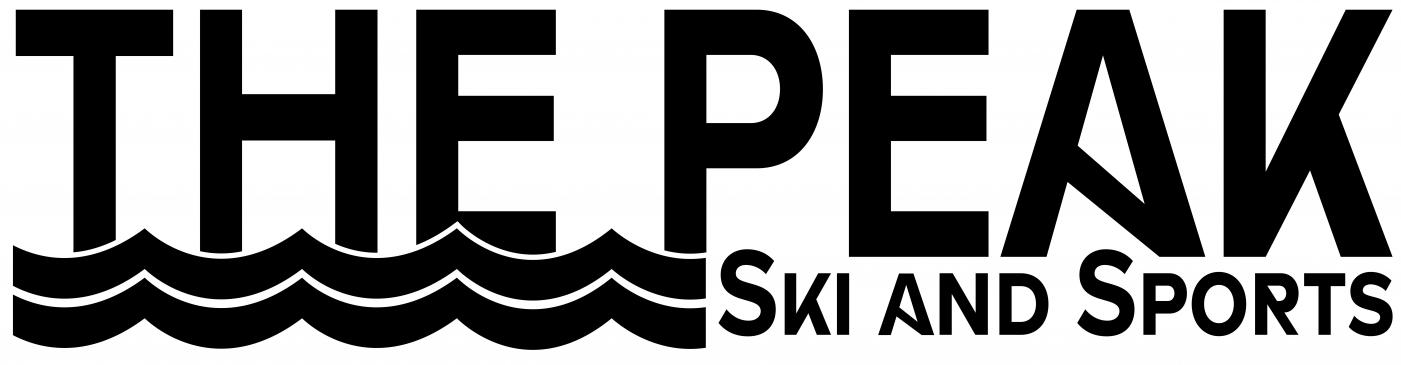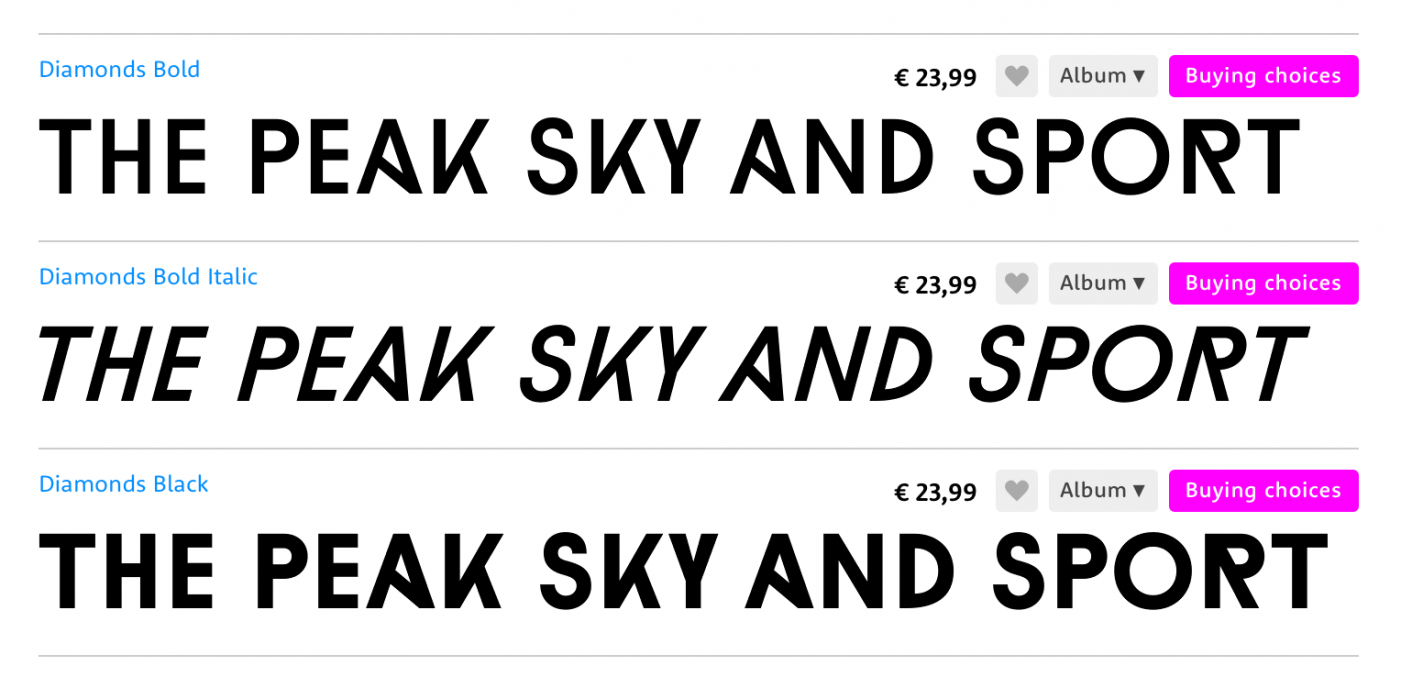
Look for the font type in our new logo (The Peak. Ski and Sports)
We had a new logo designed and we notified the designer we would want the font type so our marketing can be cohesive.  It was agreed upon he would supply the font type used to us.  Well now we have the logo and no font type it has been a week of emailing him and no answers.  Our logo is changing in 3 weeks and we have a lot of work to do and this is holding us up.  The Illustrator files I have do not have the font type attached.  I know it is based off of Arial Narrow Bold. Any help would be greatly appreciated as we can't fall any further behind.
I don't think this is a font as such but the letters have manipulated from the original.  I suspect what you need is a font that has something of the Art deco/ geometric feel of the logo. There are many out there like but it could be Avenir, Neutraface or the free Montserrat if you were thinking sans serif.
Ok thanks for the help.  If it isn't a font then that explians why he hasn't supplied me with a font and is probably ignoring me because he modified Arial Narrow Bold.  If that's the case then I might just have to stick to Arial Narrow Bold.
This is not a typeface. Personally I think you need to go back to the designer and make it very clear that the company needs to inform you about the typeface that has been used, or how it was (clearly manipulated). The responsibility is on the design company to assist you.
Wow, Ignacio, just struck gold, I mean diamonds!